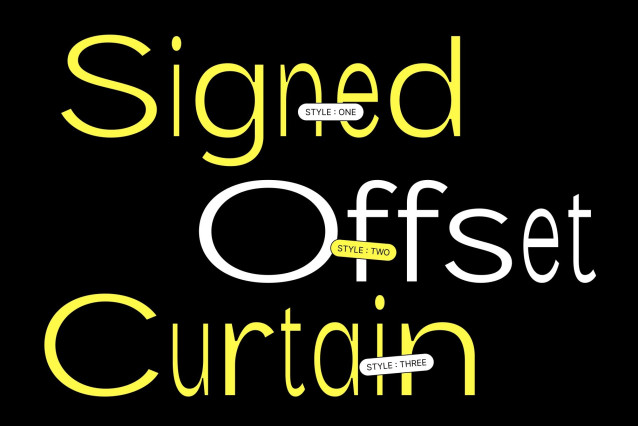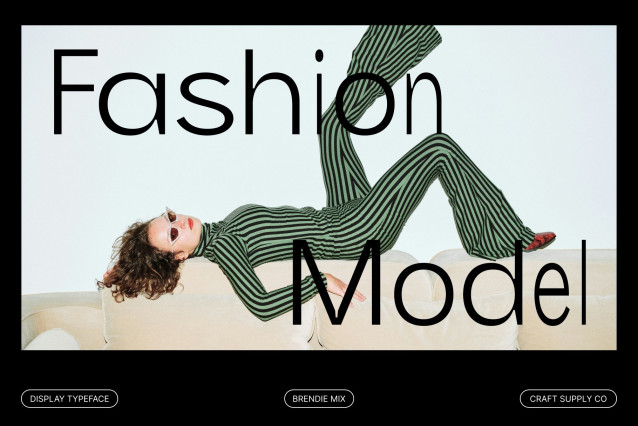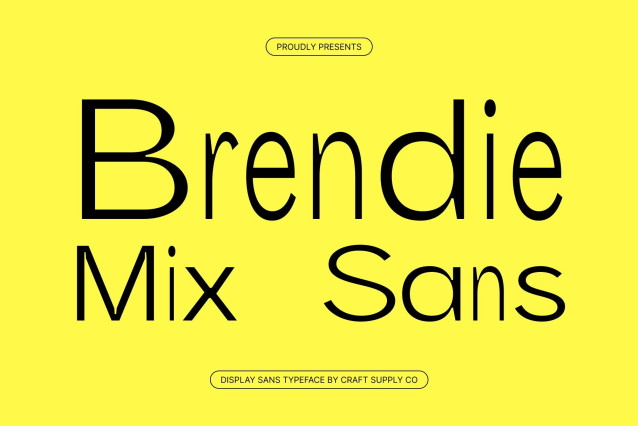
Brendie Mix Font
Brendie Mix – Modern Sans Serif Font: Professional Clarity with Contemporary Style
Modern Sans Serif with Mixed Style Character
This is a modern sans serif font designed to deliver professionalism, simplicity, and contemporary visual appeal. Built with clean shapes and balanced proportions, this typeface introduces a distinctive mixed-style concept that adds subtle contrast and rhythm to every composition. It transforms minimalist typography into a refined design element that feels polished, modern, and highly versatile.
A Balanced Blend of Bold and Regular Letterforms
The defining strength of Brendie Mix lies in its thoughtful fusion of bold and regular characters. This combination creates a dynamic typographic hierarchy that improves readability while adding visual interest. The contrast between weights gives layouts a fresh and engaging flow, allowing designs to feel professional without becoming rigid or monotonous.